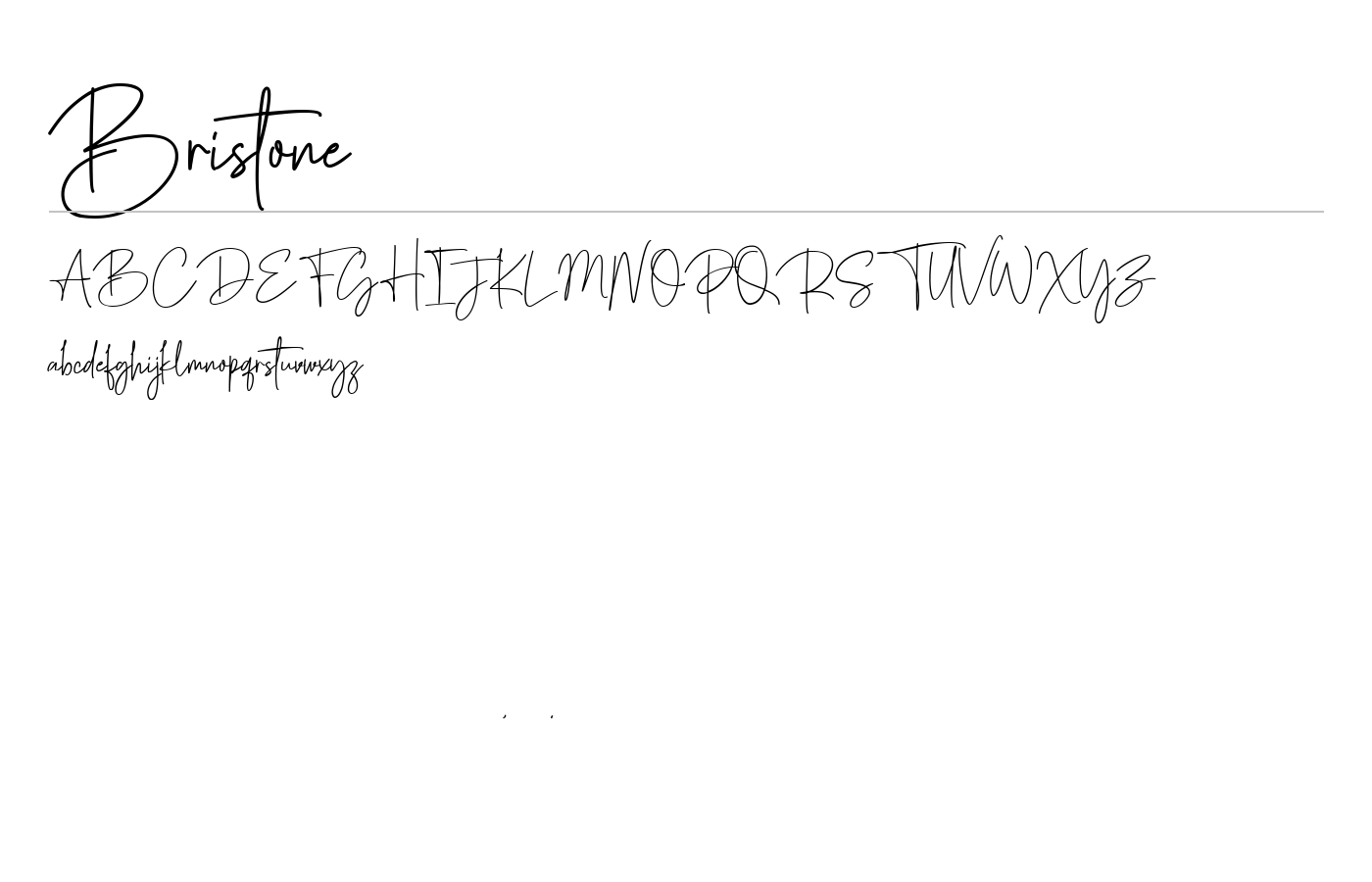
Bristone is a delicate, hand-drawn script font with a light weight and airy feel, featuring tall, slender letterforms that convey elegance and modernity. Its loose, casual strokes and slightly irregular shapes give it a personal and artistic touch, making it ideal for creative branding, invitations, and stylish editorial designs. This font works best where a refined yet approachable look is desired, adding a sense of individuality and charm.
Bristone Font
About Bristone Font
| Font family | Bristone Font |
| Designer | Iqbal Pauji |